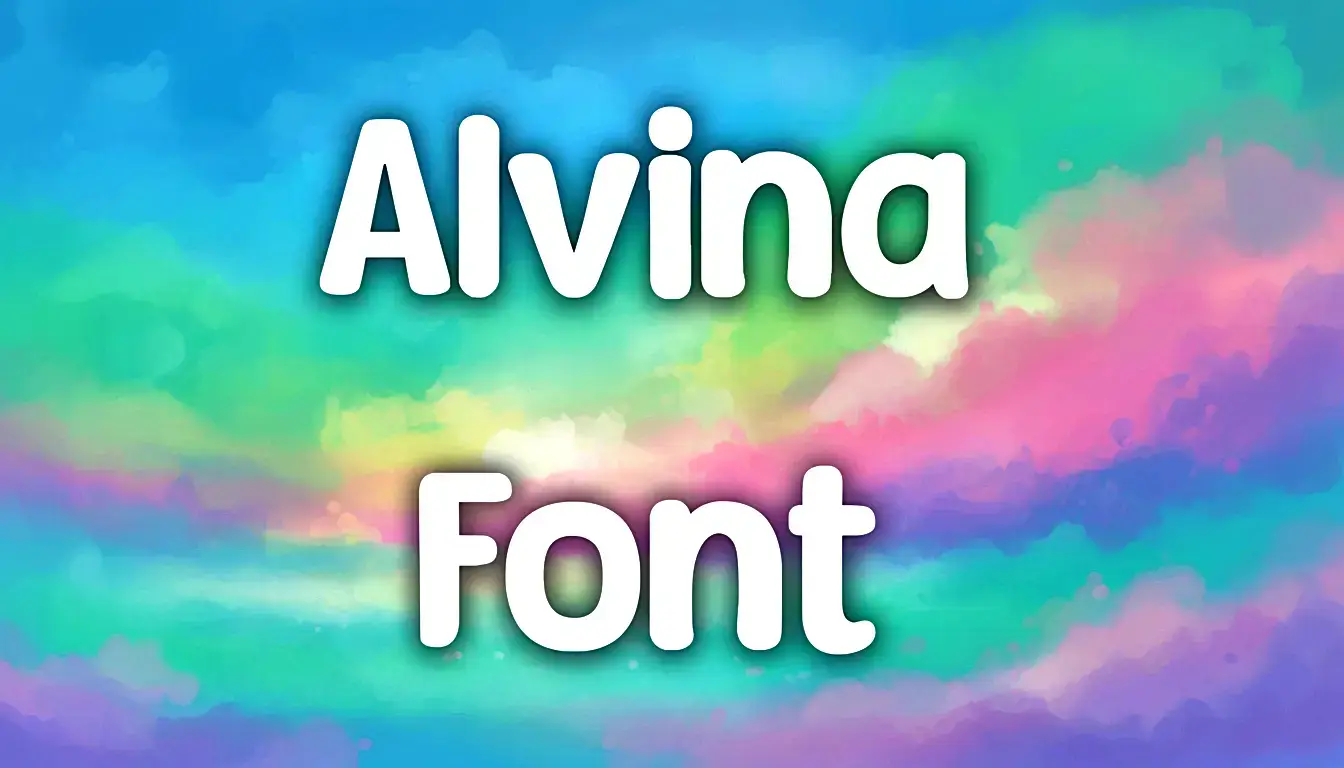
Alvina Font
Alvina
Alvina is a fancy font designed by Almaz Studio™. It's a decorative display font with plenty of personality, made to grab attention. It's a free download, and you can try it with your own text in the preview above first.
What You Can Type With Alvina
You get every letter from A to Z in both cases and all the numbers from 0 to 9, which means Alvina can handle full sentences, dates and prices. Everyday marks like &, !, ? and @ are there too. There are no accented letters like é or ñ, so it's best kept to English text.
Where Alvina Works Best
Alvina is a natural fit for posters, logos and eye-catching headlines. Use it for one standout word or headline and let simpler fonts handle the rest.
Does Alvina support accented letters?
No. Alvina has no accented letters such as é, ñ or ü, so it's best for English text.